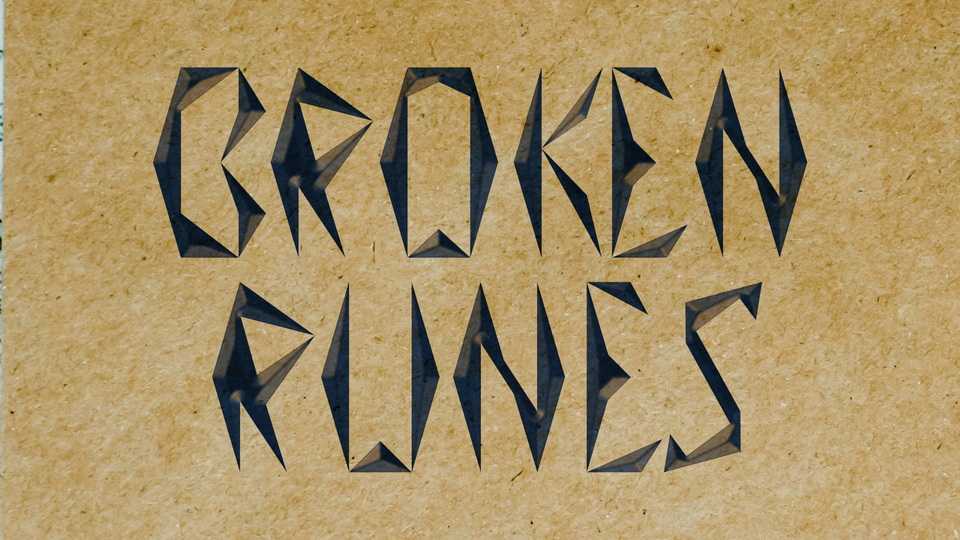
Download Broken Runes is a free bold and sharp display font, inspired by Celtic runes and mixed with triangles. Broken Runes font will look outstanding in a wide range of contexts.